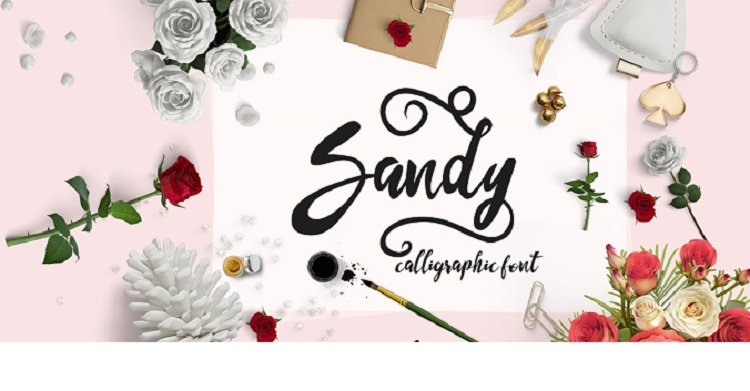
Sandy Font
Introducing a handmade brush font from FontBundles.net, carefully designed and nurtured to work in harmony with design work and beautiful crafts. The lite version of Sandy can be used for personal projects and ideal to get a good idea as to how the font looks alongside any project.